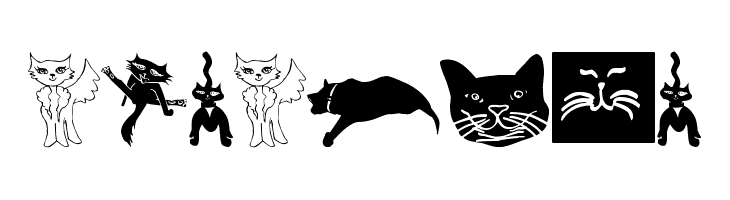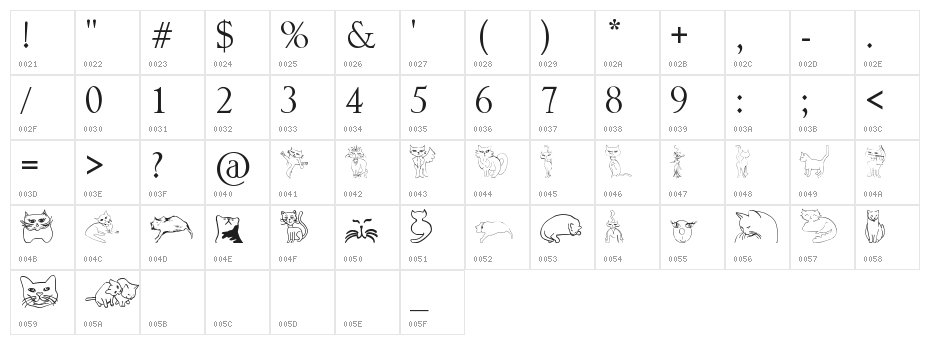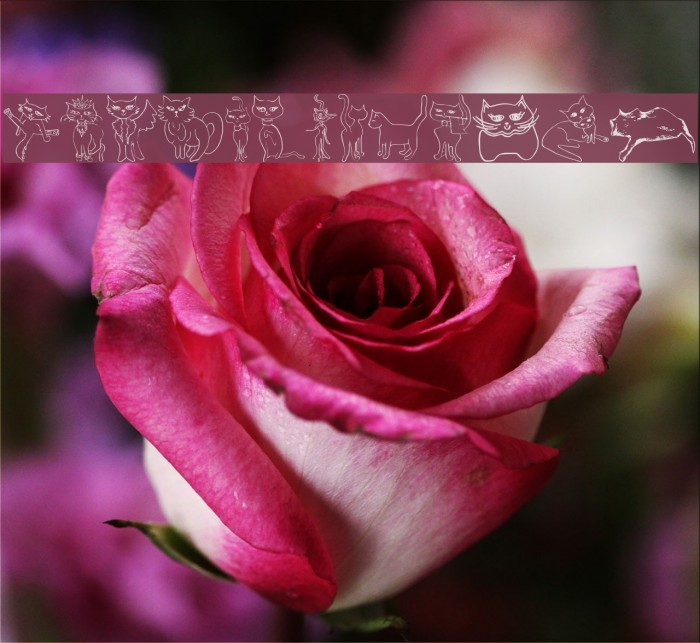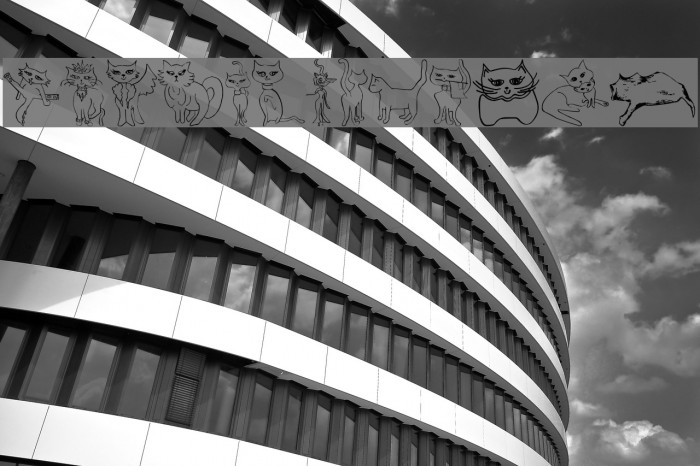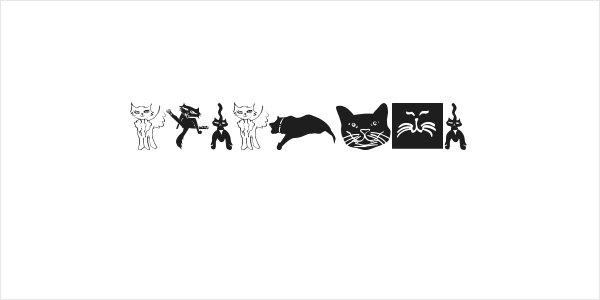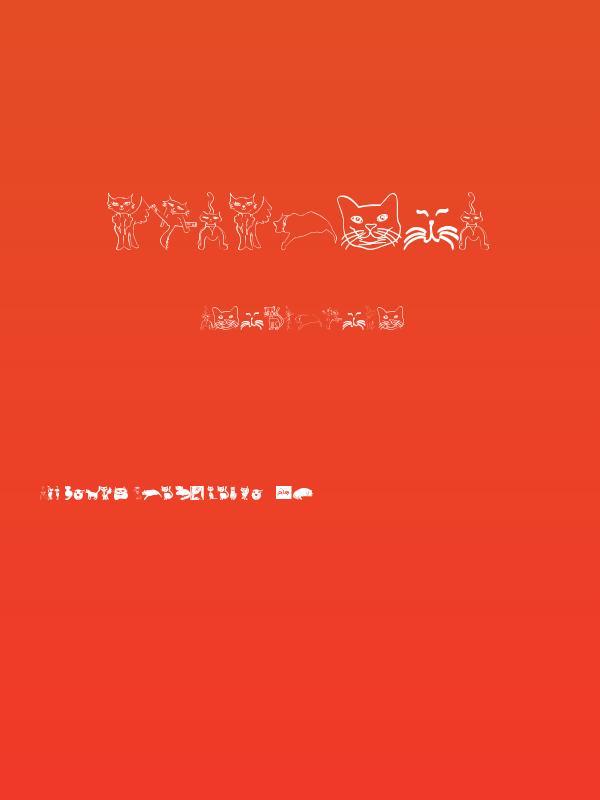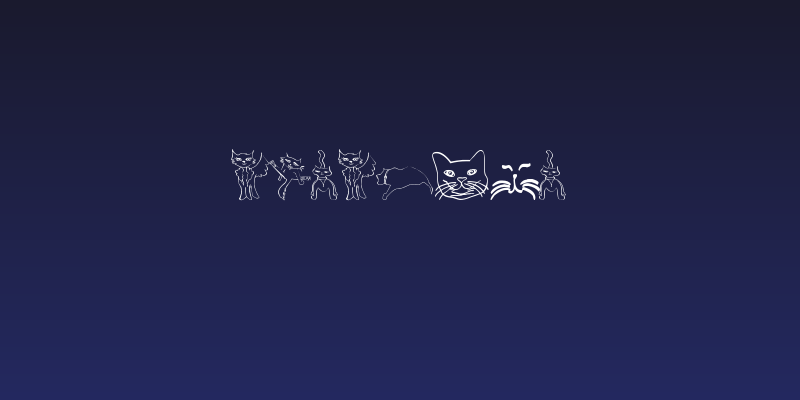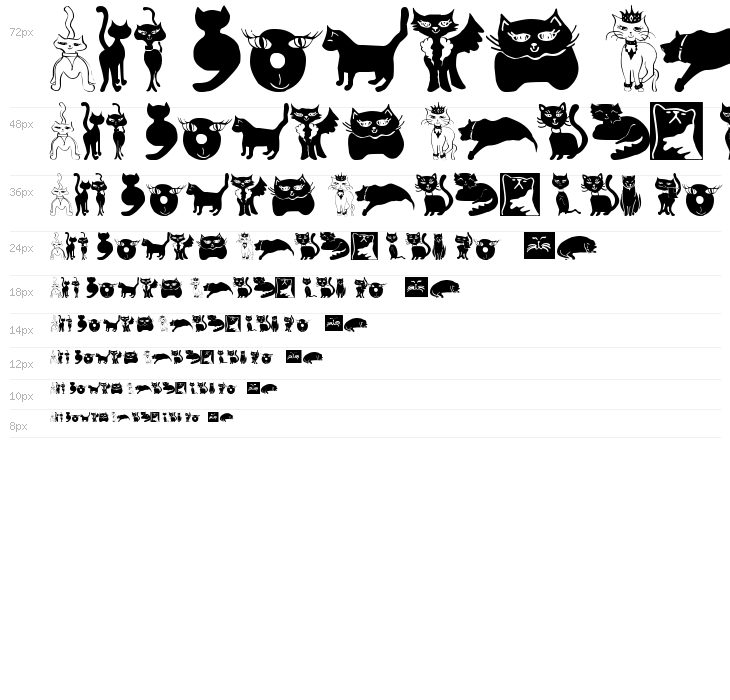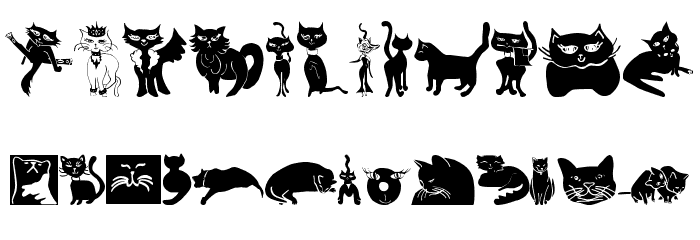
CatCrypt Font
CatCrypt Description
This font is a whimsical and playful decorative typeface featuring a variety of cat illustrations in place of traditional alphabetic characters. Each letter is represented by a unique cat design, ranging from simple line drawings to more detailed silhouettes. The numbers and special characters are presented in a classic serif style, providing a stark contrast to the playful cat illustrations. This combination creates a unique and eye-catching aesthetic that is both fun and sophisticated. The font is perfect for projects that require a touch of humor and creativity, such as children's books, pet-related branding, or playful event invitations.
| Proposed Projects | Ideal for children's books, pet branding, playful invitations, and creative design projects. |